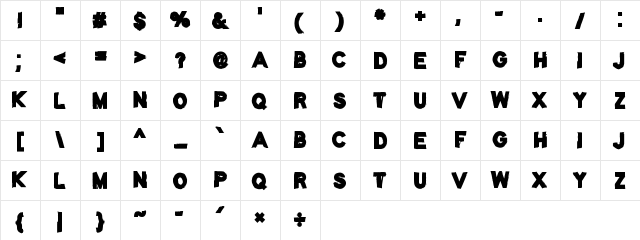
Spooky Regime Regular
Design Context for Spooky Regime Typeface
Spooky Regime takes a measured approach to typography — its balanced proportions and neutral character make it a reliable workhorse for both digital and print work.